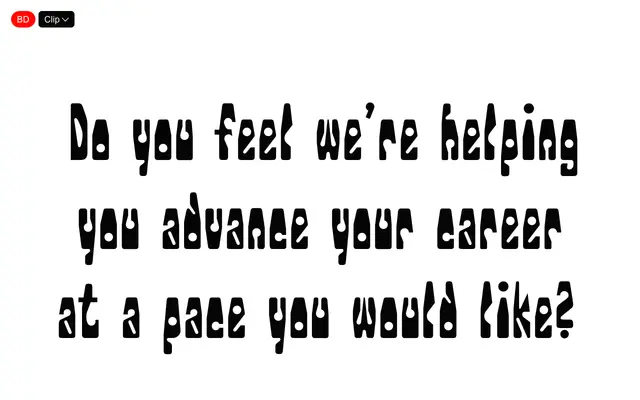
Bold Decisions · Mads Wildgaard & Asger Behncke Jacobsen · 2015
A modular headline typeface revived by Asger Behncke Jacobsen in 2015 and completed with Mads Wildgaard in 2017, available only on request.
Built from modular construction principles, Clip is so singularly distinctive that the designers themselves note it appears suited to just one specific application. The revival began in 2015 under Asger Behncke Jacobsen and was completed in collaboration with Mads Wildgaard by 2017. It covers a broad range of European languages and is distributed in OTF and WOFF2 formats, though it is not available for standard purchase.
Clip is explicitly described as a modular typeface intended primarily as a headline face, with a distinctiveness so extreme the designers note it seems built for a single application — hallmarks of display-category type.